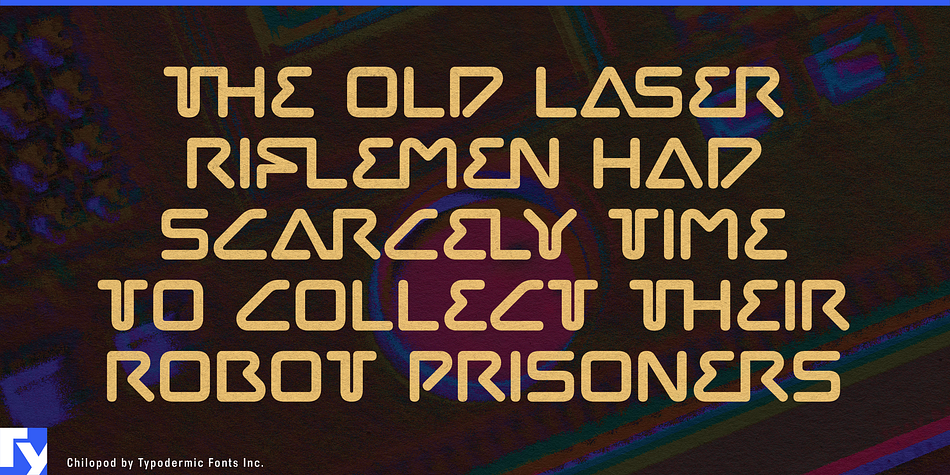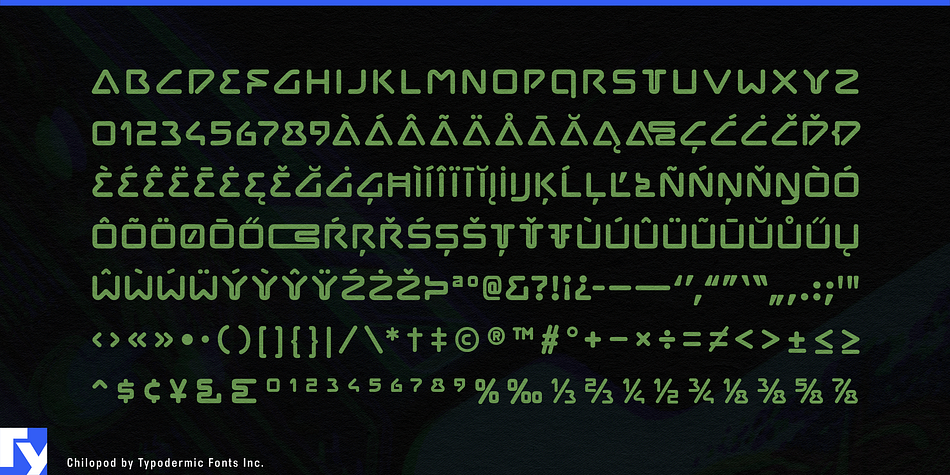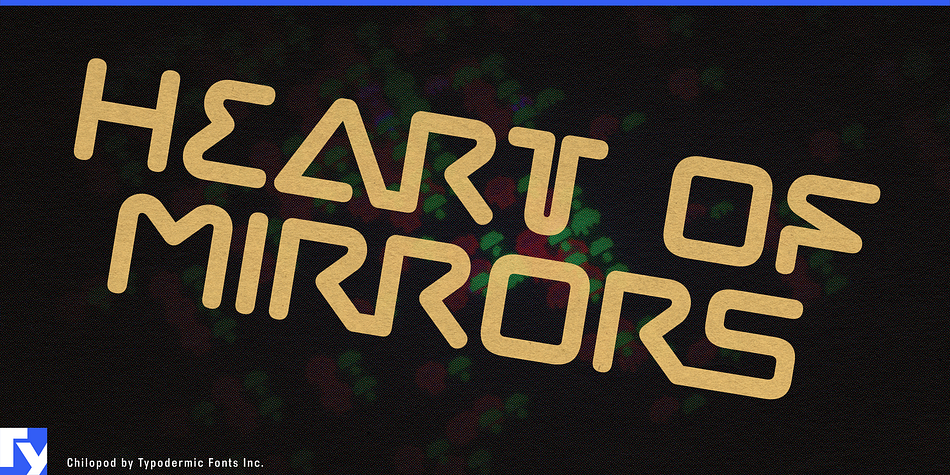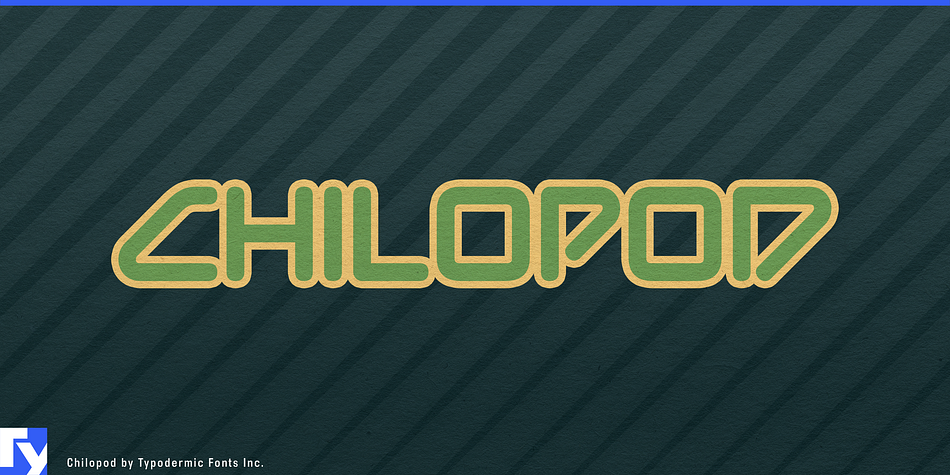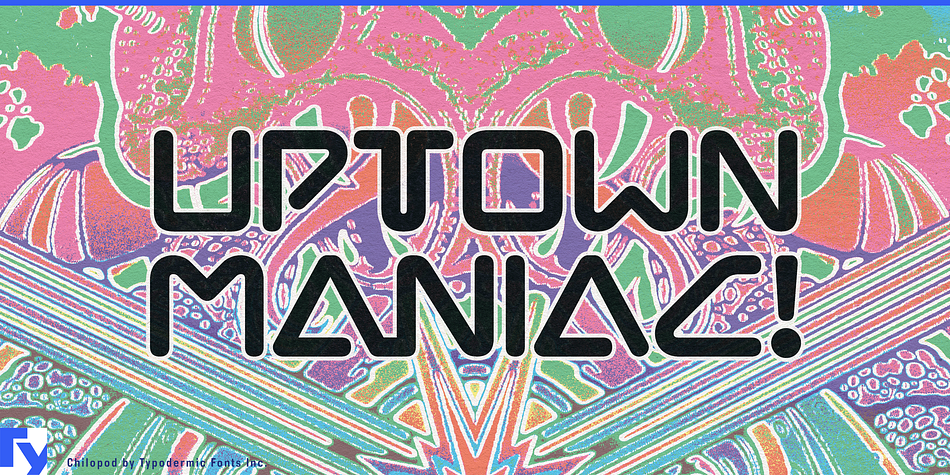
Chilopod is a novelty and retro font published by Typodermic Fonts Inc.
Chilopod was inspired by the logo from the best video game of the 1980s: Atari Centipede.